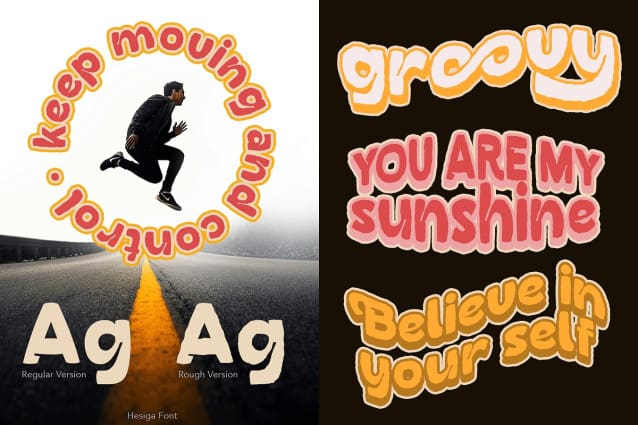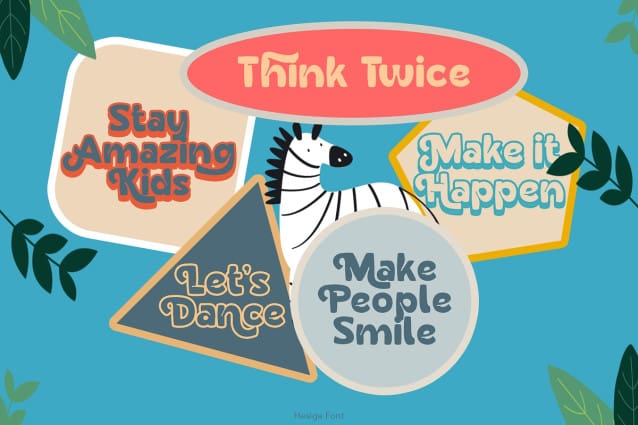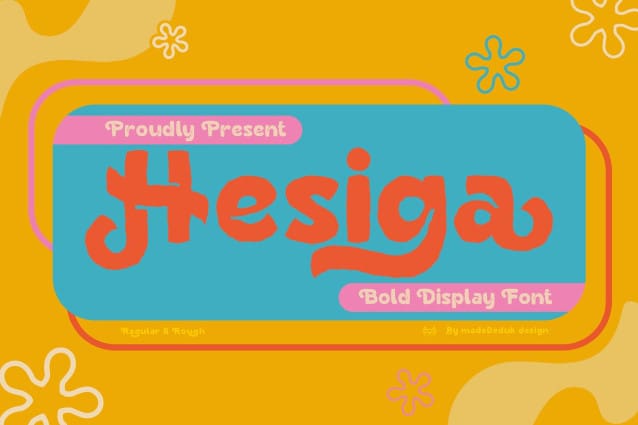
Hesiga Display Font
Hesiga Display Font is a fun retro display font, fat and playful 60’s and 70’s inspired designs. It features bold, curvy lettering dripping with nostalgia perfect for all your project design. To access additional characters please visit the glyphs panel.